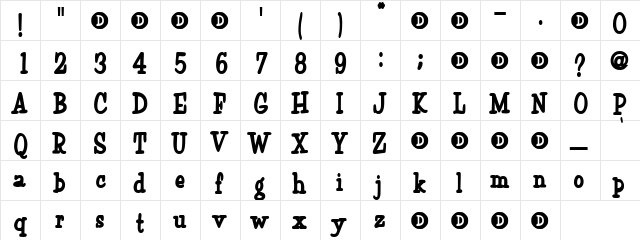
CrimsonClover Regular
Design Context for CrimsonClover Typeface
CrimsonClover offers clean, dependable letterforms without strong stylistic allegiance, making it a practical choice for designers who need flexibility.